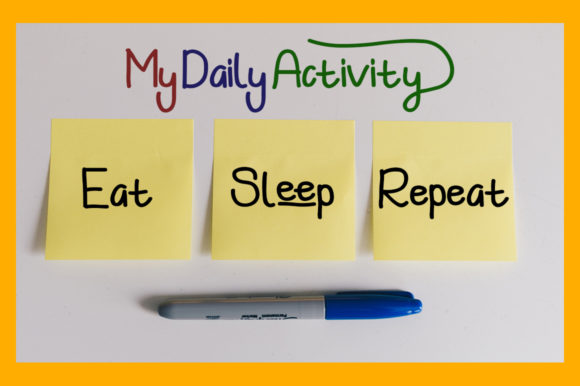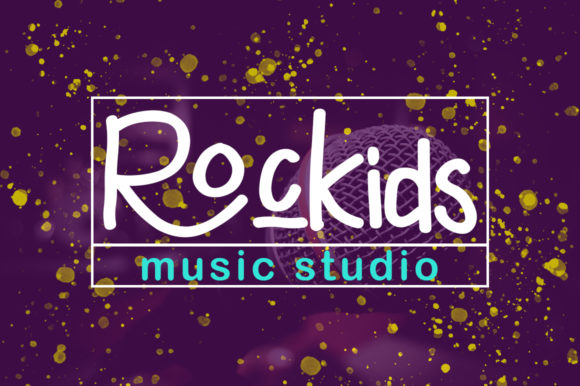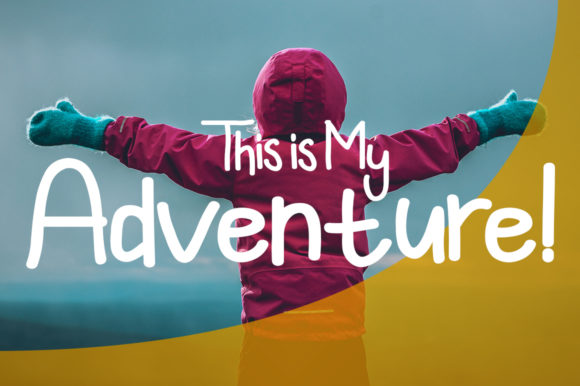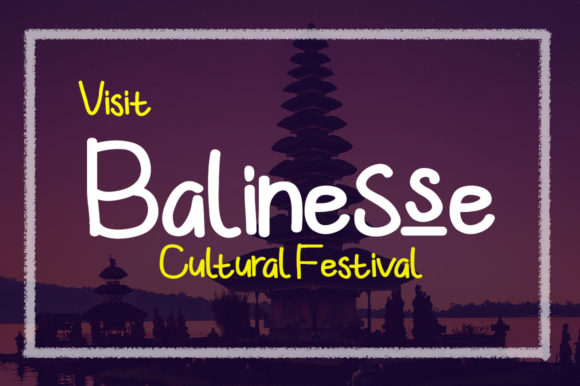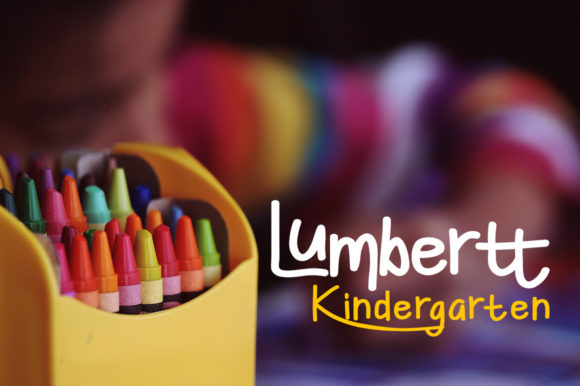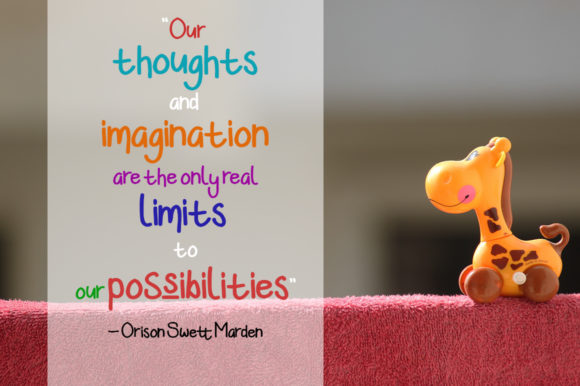
Introduction to Koowalsky Font
Have you ever been working on a creative project, pouring your heart and soul into the design, and then, BAM! You hit a roadblock. The perfect font just isn’t there to bring your vision to life. That’s where the Koowalsky Font comes in – a fun and bold display font that’s guaranteed to turn your design idea into a true showstopper.
Imagine a font that can add an adventurous feel to your design, making it stand out from the crowd. A font that’s not only high-quality but also easy to use, with a transparent background that lets your creativity shine through. The Koowalsky Font is the perfect design resource for any creative project, and the best part? It’s available for free download, making it accessible to designers of all levels.
Key Features of Koowalsky Font
- High-quality, professional design ideal for creative projects and publications
- Includes a comprehensive set of glyphs, including international characters and symbols
- Designed to be highly legible, even at small font sizes, making it perfect for body text and titles
Honest Review: Koowalsky Font
I recently had the chance to work with the Koowalsky Font, and I must say, it’s been a great addition to my design resource library. ✨ One of the standout features is its high quality, making it perfect for creative projects where every detail counts.
One of the best things about the Koowalsky Font is its versatility. It comes in a range of weights and styles, allowing you to tailor it to your specific design needs. Additionally, the font is available for free download, making it an excellent choice for designers on a budget.
- Range of weights and styles
- Limitations:
- Some users may find the font too bold for certain applications
Overall, I’m really impressed with the Koowalsky Font. It’s a solid design resource that I would highly recommend to anyone looking for a high-quality font for their creative project.
Experiment with different font sizes, colors, and combinations to get the most out of the Koowalsky Font. Use it for headings, titles, or body text to add a unique touch to your designs.
The Koowalsky Font is suitable for various design projects, including logos, branding materials, and creative projects with a transparent background. It’s also great for presentations, documents, and other visual content.